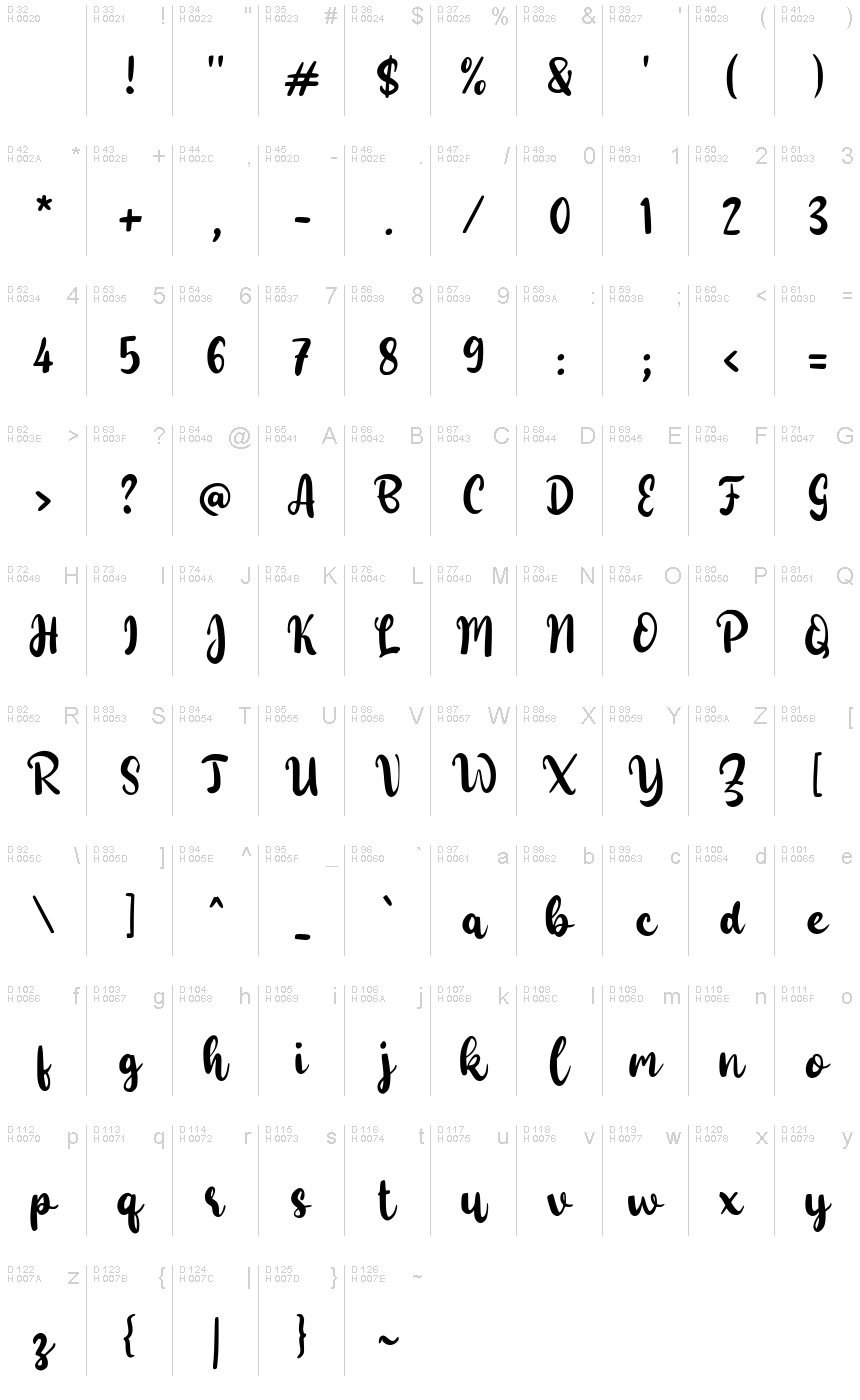
Fabrice
Fabrice, designed by wep, is a brush-style font that radiates a semi-bold personality perfect for injecting organic warmth and artistic flair into any project. The sweeping curves and varying stroke weights of Fabrice evoke the spontaneity of hand-painted signs or the intimate touch of a handwritten letter. This font's aesthetic charm lies in its imperfect, human quality, which makes it stand out against the precision of digital typefaces.
With its semi-bold weight, Fabrice strikes an ideal balance between presence and legibility, making it versatile for both print and digital mediums. Whether gracing the cover of a boutique magazine, setting the tone on a personal blog, or adding character to branding materials, Fabrice's style is poised to elevate creative endeavors with its distinctively approachable elegance.